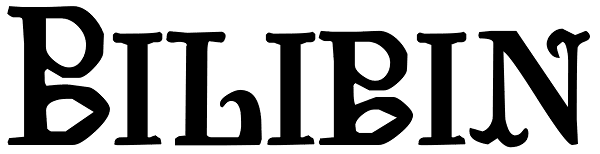
Bilibin
Ivan Bilibin was one of the best artists and designers of the Russian folk art movement of the early 1900s. His posters and his illustrative work are exceptional, and like many of the artists of the period he did a lot of hand lettering in various...